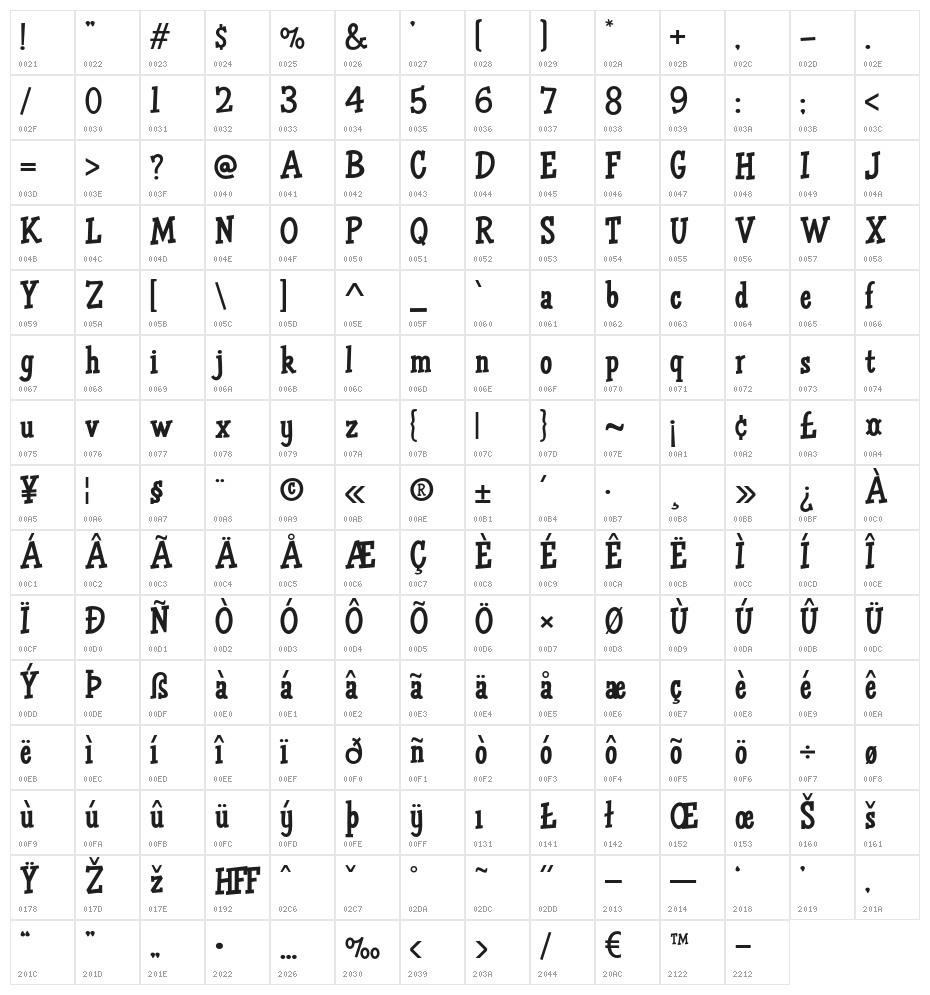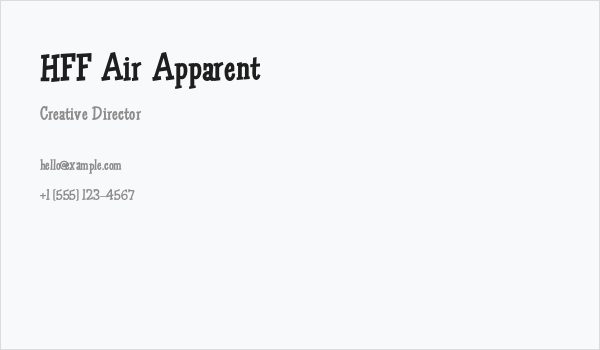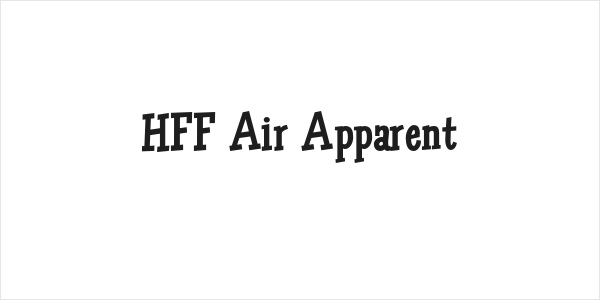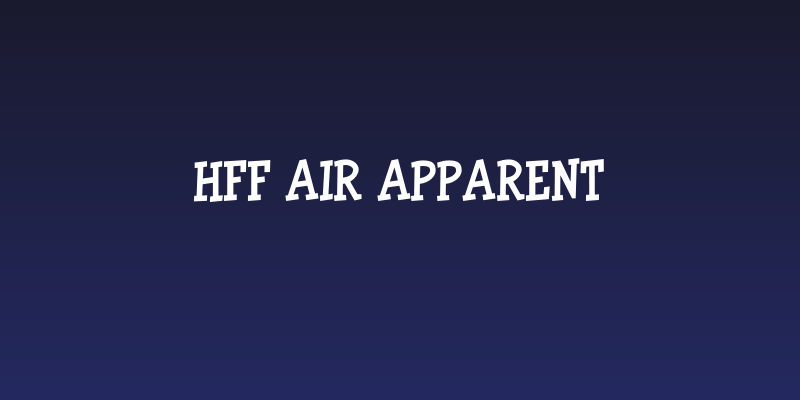
HFF Air Apparent Font
HFF Air Apparent Description
This font features a bold and playful style with a slight slant, giving it a dynamic and energetic appearance. The characters are well-defined with a moderate stroke contrast, making them stand out. The uppercase letters have a distinctive flair, while the lowercase letters maintain a consistent flow. The numbers are bold and clear, ensuring readability. Special characters are uniquely styled, adding to the font's overall charm. This font is ideal for projects that require a fun and engaging look.
Overall StylePlayful, Energetic
Proposed ProjectsPerfect for children's books, playful branding, posters, and event invitations.